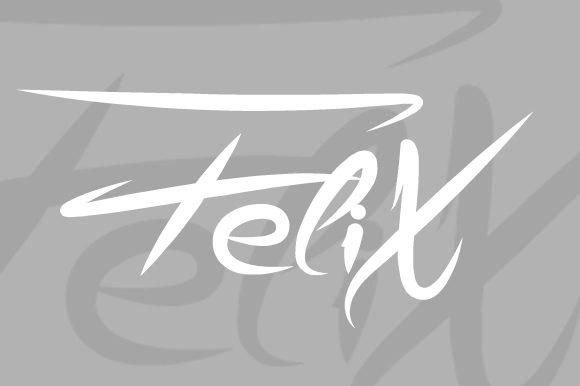
Felix Font
About Felix Font
Felix is a casual and friendly handwritten font. Clean and a little bit quirky, this font is the perfect fit for all of your logos, branding, social media, and crafty DIY projects.